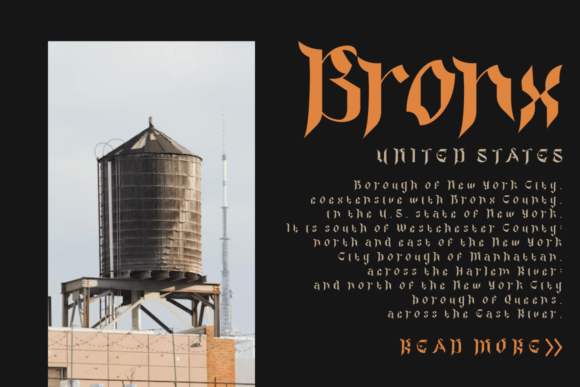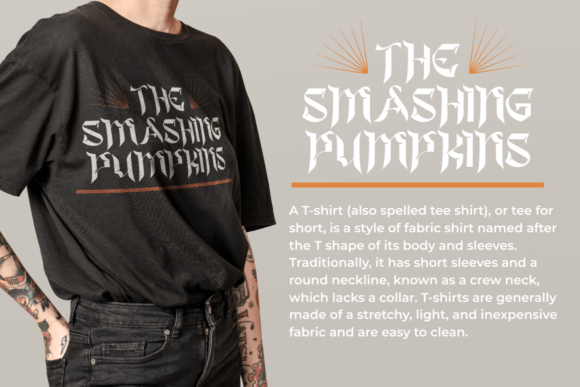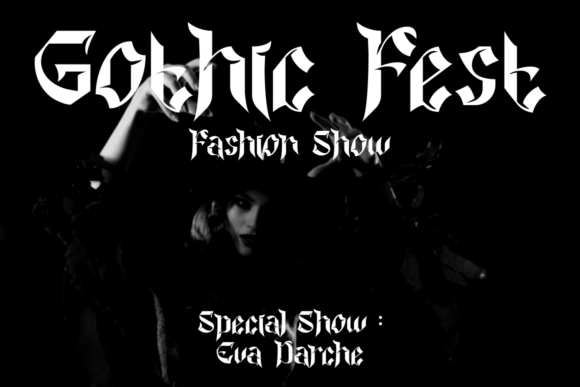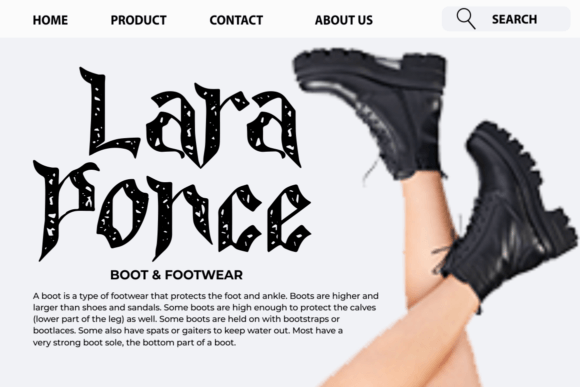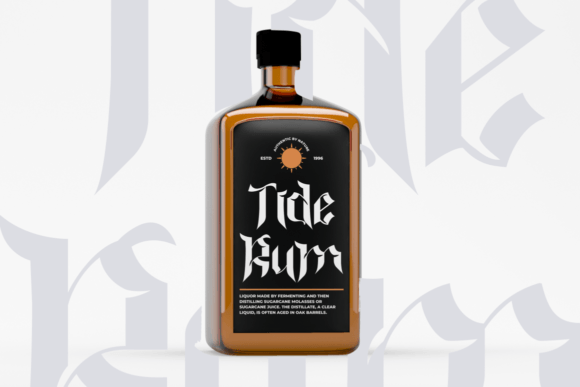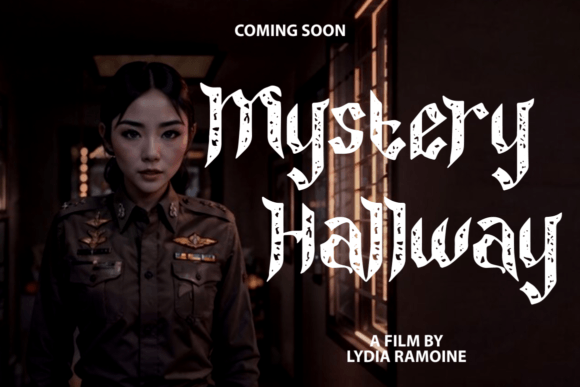
Unleash the Dark Elegance of Colide Font: A Gothic Masterpiece
In the realm of typography, few fonts manage to evoke the mystique and allure of Gothic style as effectively as Colide. This unique font breaks away from conventional norms, offering a fresh and captivating take on traditional Gothic typography. With its distinctive pointed tips and a cut line running through the body, Colide Font is poised to add an edgy sophistication and a hint of horror to your design projects.
A Dual Personality: Clean and Textured Variations
One of the standout features of Colide Font is its versatility, offered through two distinct variations: clean and textured. This dual offering allows designers to choose the perfect style to match their project’s aesthetic and requirements.
Clean Version: Sleek, Modern Aesthetic
The clean version of Colide presents a sleek and modern take on Gothic typography. Its smooth lines and pointed tips exude a sense of elegance and refinement, making it ideal for designs that require a touch of Gothic sophistication without the roughness. This variation is perfect for:
- Logos and branding materials that demand a unique edge
- Invitations and greeting cards seeking a touch of elegance
- Packaging and posters that need to stand out with a modern aesthetic
- Business materials and magazines aiming for a distinctive look
Textured Version: Depth and Intensity for Horror Themes
For projects that call for a more intense and dramatic effect, the textured version of Colide Font is the perfect choice. This variation adds a layer of depth and horror-themed appeal, making it suitable for:
- Horror-themed projects, such as film titles and posters
- Band logos and music-related designs that require an edgy vibe
- Headlines and titles that need to grab attention with a sense of mystery
- Any design that aims to evoke a sense of intrigue and darkness
Why Choose Colide Font?
Colide Font stands out in the world of typography for several reasons:
- Unique Design: Its pointed tips and cut line offer a fresh take on Gothic typography.
- Versatility: Available in clean and textured variations to suit different design needs.
- Elegance and Horror: Adds a touch of Gothic sophistication with a hint of horror.
- Wide Range of Applications: Suitable for logos, branding, invitations, packaging, posters, titles, business materials, greeting cards, magazines, headlines, films, band logos, and more.
Elevate Your Designs with Colide
Whether you’re a designer looking for a unique font to elevate your projects or a crafter seeking the perfect typography to bring your creations to life, Colide Font offers the perfect blend of elegance and edge. Its distinctive charm and versatility make it an excellent addition to your design toolkit.
With Colide Font, you can:
- Create visually striking designs that capture attention.
- Add a touch of Gothic sophistication with a modern twist.
- Experiment with different styles and themes, from sleek and modern to dark and horror-themed.
Colide Font is more than just a typeface; it’s a design statement. Its unique blend of Gothic elegance and edgy sophistication, offered in two versatile variations, makes it an invaluable resource for designers and crafters alike. Whether you’re aiming to create a modern brand logo, a horror-themed movie poster, or a captivating magazine headline, Colide Font is sure to bring a distinctive and captivating charm to your projects. Embrace the dark elegance of Colide and elevate your designs to new heights.